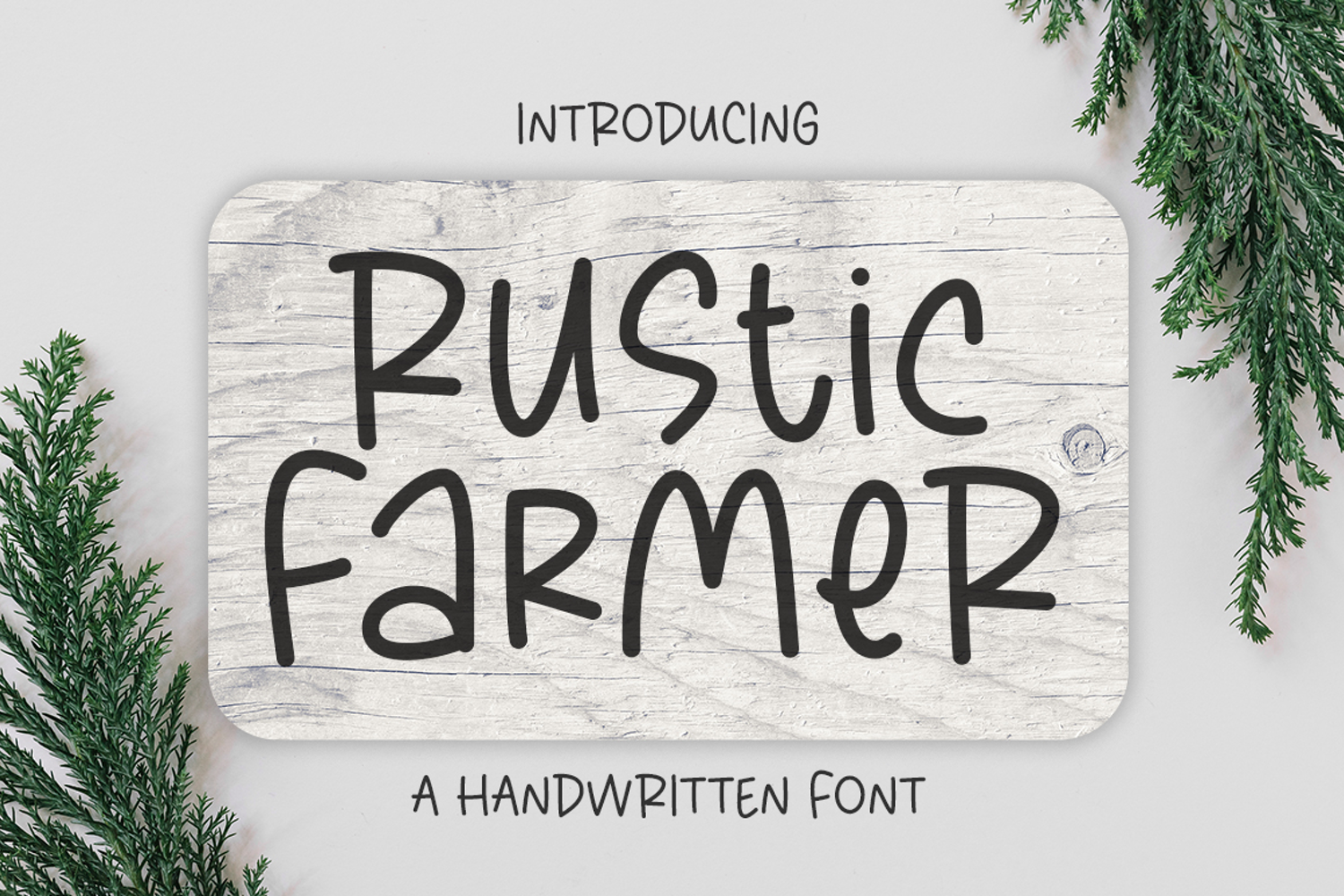
Rustic Farmer
Rustic Farmer is a cute and simple-lettered handwritten font perfect for all the chalkboard quotes and teaching materials you wish to create! Its authentic look and realistic feel to your designs.